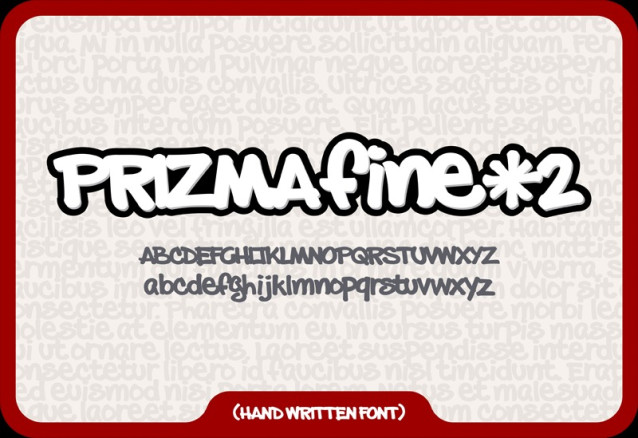
Prizma Fine 2 Font a sweet and friendly handwritten font. Cute and fun, this font is ideal for writing wedding invitations, cards, or any other design that might need a fun touch!
Prizma Fine 2 Font